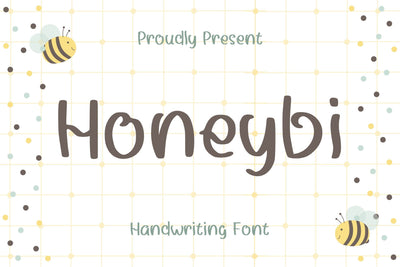
Honeybi Handwriting Font
Honeybi is a cute and simple lettered handwritten font that can be used for all chalkboard quotes or teaching material! Its authentic look will add a realistic feel to your designs.